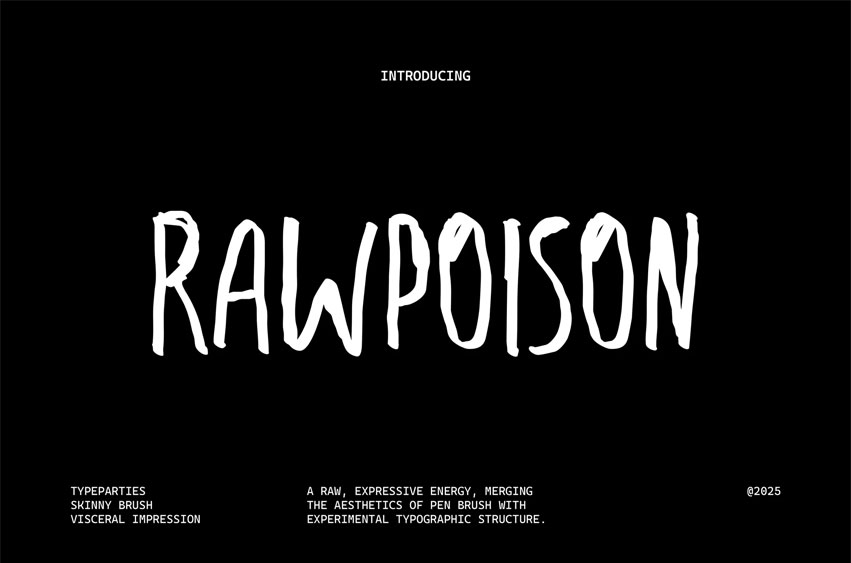
RawPoison Font is a raw, expressive energy, merging the aesthetics of brush pen with experimental typographic structure.
Its elongated strokes, irregular spacing, and textured finish create a sense of urgency and rebellion, while the dripping effects amplify its gritty, street-inspired identity.